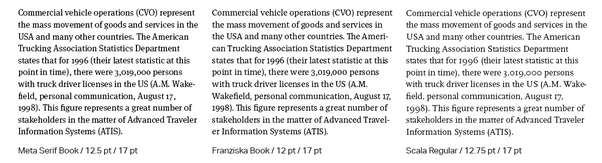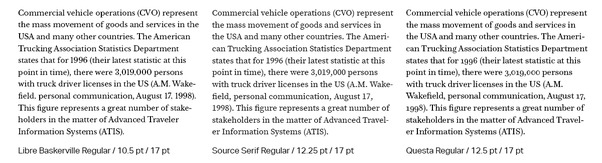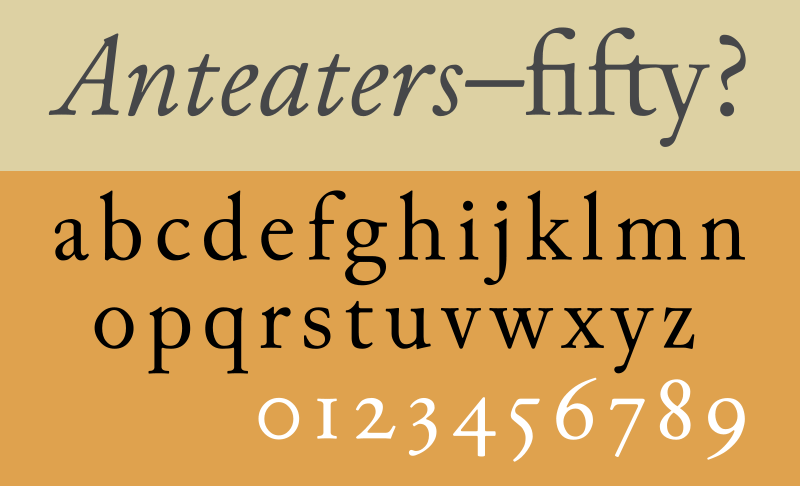
However, you can use other fonts for the headings. Be vulnerable about your feelings, thoughts, and experiences to connect with the.
List Of What Font To Use For Academic Writing For Logo Design, Examples of serif fonts are times new roman, courier, palatino and new century schoolbook. I take it as given that you won’t use typefaces that are not suitable for an academic setting at all, like a comic or blackletter typeface, i.e., any typeface you that is not suitable for a printed poster either.
Widely believed as the best font, times new roman is a serif font. If you use a different font size, you may exceed or hit below the word count leading to disqualification or any other penalty as the lecturer may decide. For an academic paper each publisher journal have their standards. Use a standard, readable font;
Serif fonts are easier to read because the little feet guide the eye from one word to the next. However, you can use other fonts for the headings. This serif font is another microsoft word staple. Widely believed as the best font, times new roman is a serif font.
If you use a different font size, you may exceed or hit below the word count leading to disqualification or any other penalty as the lecturer may decide. Garamond, a 1920s detective lurking in the shadows of a new york alleyway, waiting for a corrupt district. If the journal specifies something, follow that specification. It is because, from many years, times new roman is the default body text for microsoft word. What Font Should I Use? Dr. Mark Womack.
If this font were a character: The first is georgia, or. For an academic paper each publisher journal have their standards. The best fonts to use on your resume calibri. Academic Writing10G worksheet.
If you use a different font size, you may exceed or hit below the word count leading to disqualification or any other penalty as the lecturer may decide. In the absence of a required font, anything goes so long as it doesn’t look weird, but i have two recommendations. This serif font is another microsoft word staple. These do not affect or are affected by the manuscripts sent in to the journal. 1 Examples of different types of academic texts. Download Scientific.
Serif fonts are easier to read because the little feet guide the eye from one word to the next. Take a look below to see what i mean. It’s the standard for mla format. Best fonts for academic papers in microsoft word. Free Images writing, number, font, text, handwriting, whiteboard.
The first is georgia, or. I take it as given that you won’t use typefaces that are not suitable for an academic setting at all, like a comic or blackletter typeface, i.e., any typeface you that is not suitable for a printed poster either. Use no more than two typefaces in a single document. Apa style papers should be written in a font that is legible and widely accessible. Text Box An Academic Writing Guide to Genre & Format.
You found the disney font and you want to use it on your poster. So if you submit the paper electronically, be sure to use a font your instructor has. This serif font is another microsoft word staple. However, you can use other fonts for the headings. What is the best font for academic writing? Quora.
Take a look below to see what i mean. Examples of serif fonts are times new roman, courier, palatino and new century schoolbook. It is a serif typeface font that is hugely popular even. The best fonts to use on your resume calibri. (PDF) Writing Academic Text a Summary.
Commonly used fonts for academic work. Use a conversational yet respectful tone, as if speaking with a teacher or mentor. So, we will focus on serif and sans fonts, that also used by the best reddit essay writing services. It is a serif typeface font that is hugely popular even. What is the best font for academic writing? Quora.
For an academic paper each publisher journal have their standards. This serif font is another microsoft word staple. Serif fonts are easier to read because the little feet guide the eye from one word to the next. The best font for a college essay is times new. What is the best font for academic writing? Quora.
Many find it superior, but learning the system and converting your document won't be quick and easy. Serif fonts are easier to read because the little feet guide the eye from one word to the next. It’s the standard for mla format. Use a conversational yet respectful tone, as if speaking with a teacher or mentor. Academic Writing Essays Text.
Examples Of Serif Fonts Are Times New Roman, Courier, Palatino And New Century Schoolbook.
Times new roman (12pt.) arial (11pt.) calibri (11pt.) georgia (11pt.) the same font and font size is used throughout the document, including the running head, page numbers, headings, and the reference page. What is the best font for writing papers? Some journals specify fonts, commonly standard times roman, for their manuscripts. Be vulnerable about your feelings, thoughts, and experiences to connect with the.